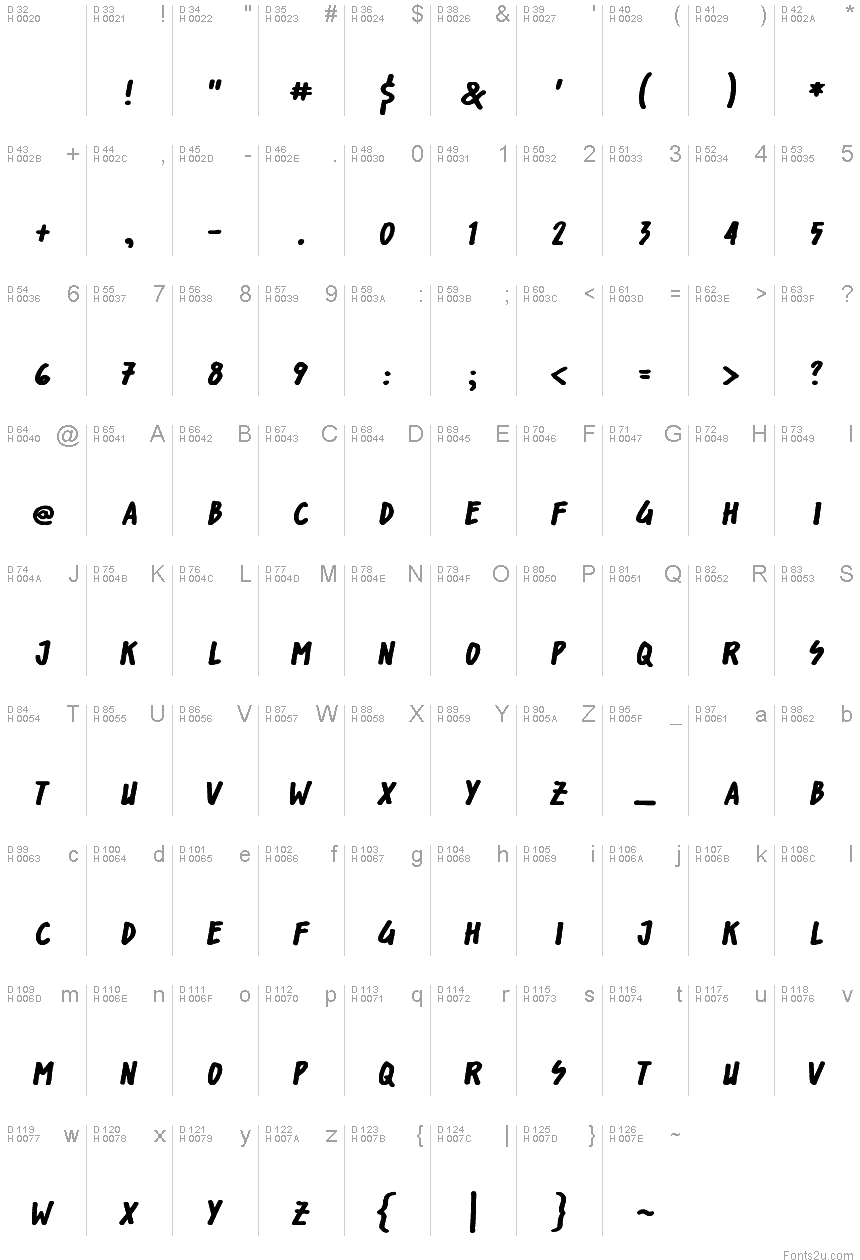
Shorelines Display
Not your average Cursive font, Shorelines can behave like a girl's handwriting then shreds like a boss over the sea waves! Whether you're a photographer who wants that signature text on your images, or a blogger, maybe a Pro-Surfer? Shorelines Script will cater all your cursive dreams. The imbalanced heights and spacing will give your work a natural and handwritten look.
Note: Try combining the Uppercase and Lowercase characters to form a unique look of a word. Also, the swashes and extras are found in some of the Punctuation Marks of the brush and script fonts.
Try typing: (ShorelinEs)